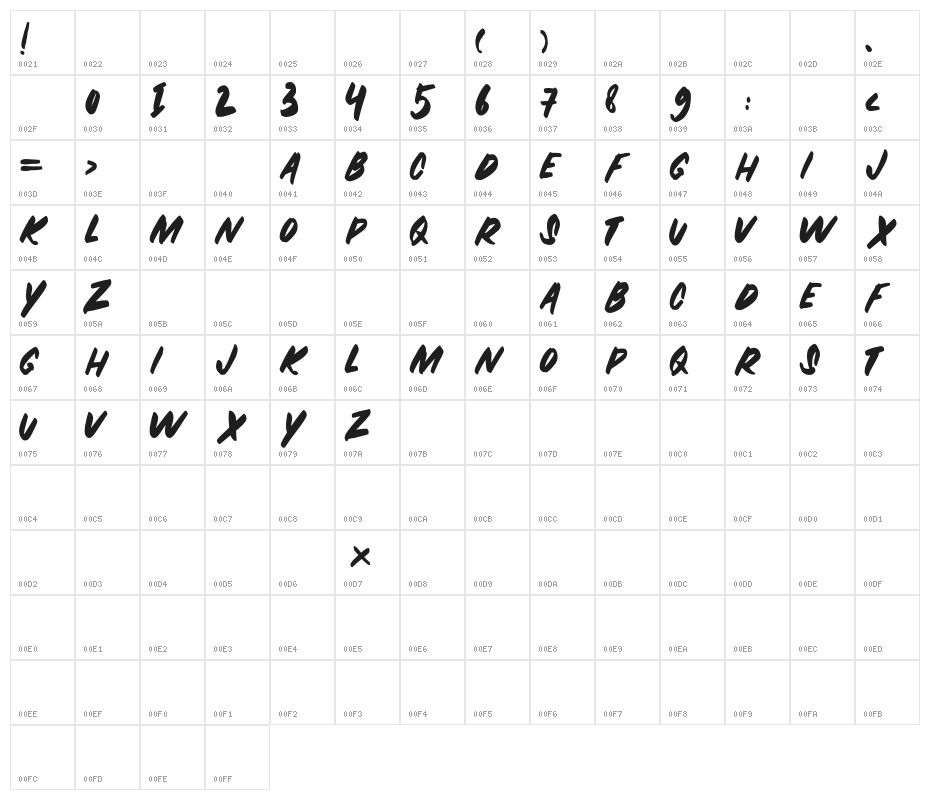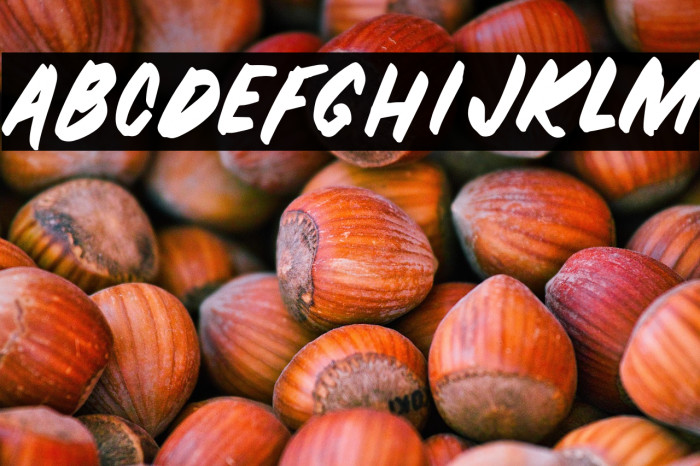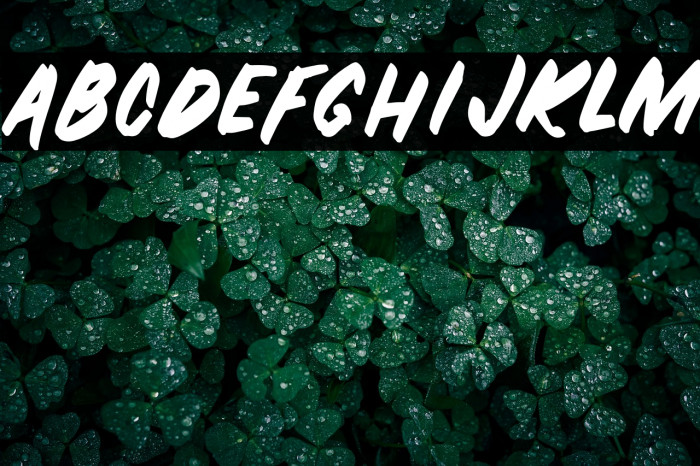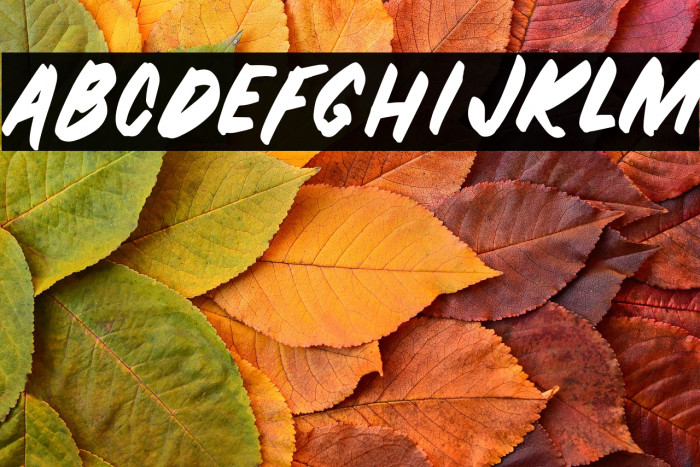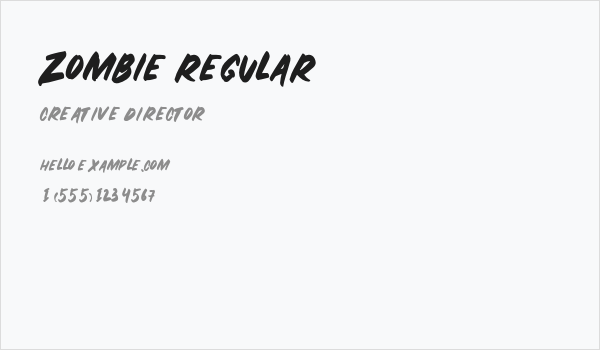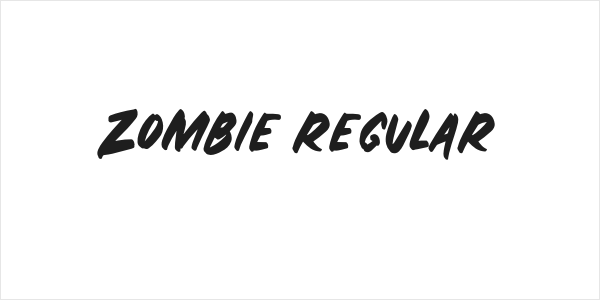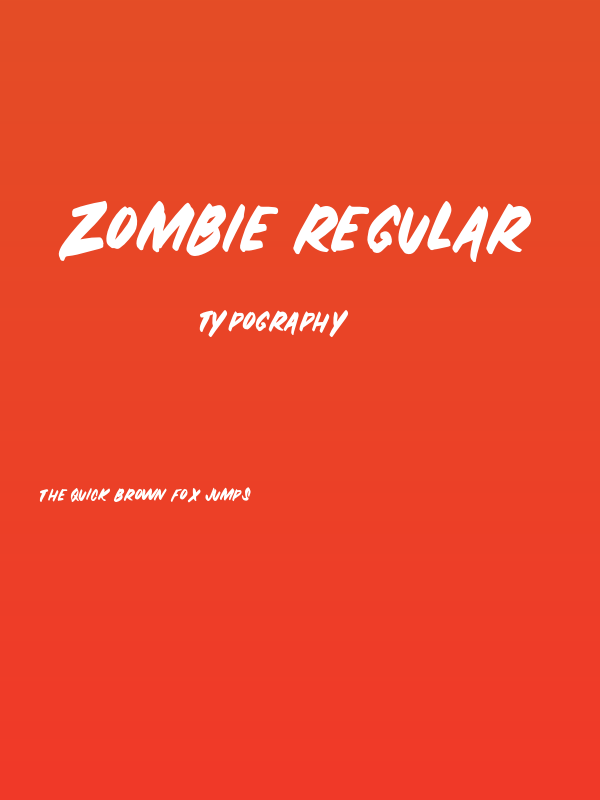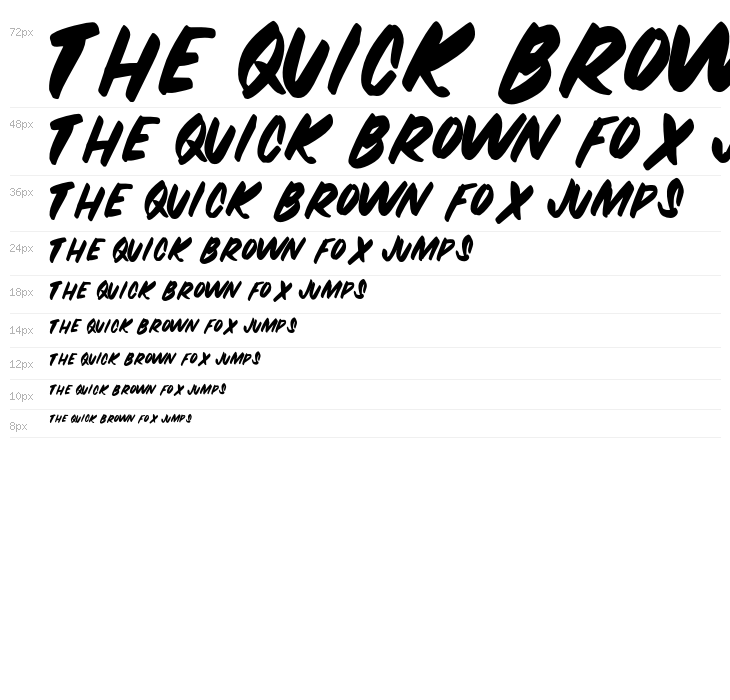
ZOMBIE-Regular Font
ZOMBIE-Regular Description
This font features a bold, energetic style with a hand-drawn appearance. The letters are thick and slightly slanted, giving a dynamic and lively feel. The uppercase and lowercase letters maintain a consistent style, with rounded edges and a playful, informal look. The numbers and special characters follow the same aesthetic, ensuring a cohesive appearance across all elements. The strokes are bold and consistent, making it suitable for attention-grabbing designs.
| Proposed Projects | Ideal for posters, event flyers, branding projects, and any design requiring a bold, informal touch. |